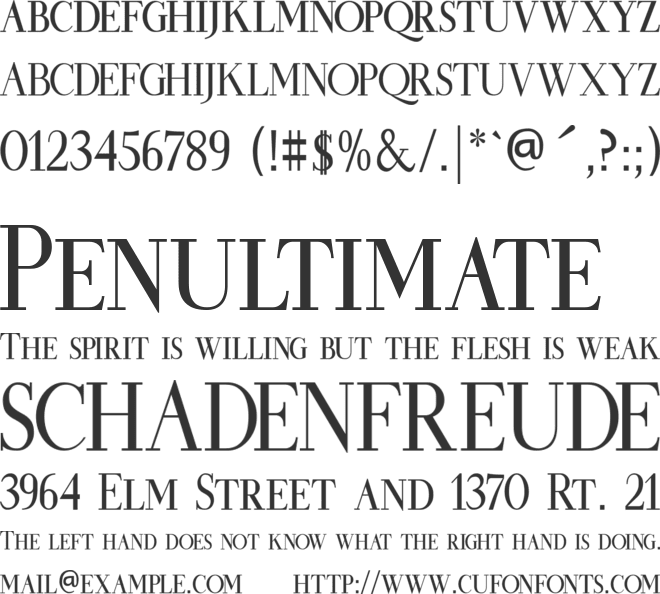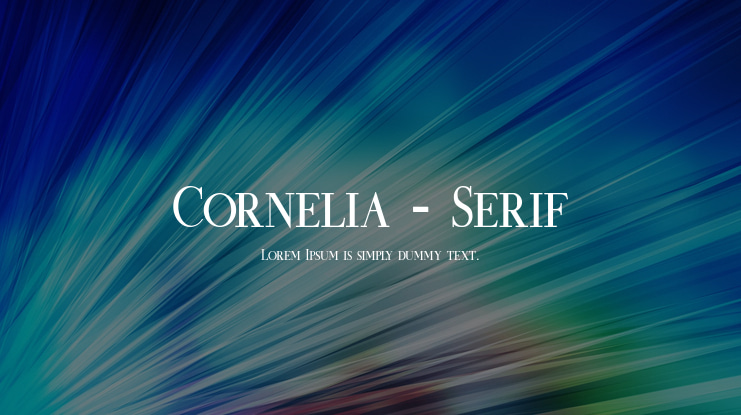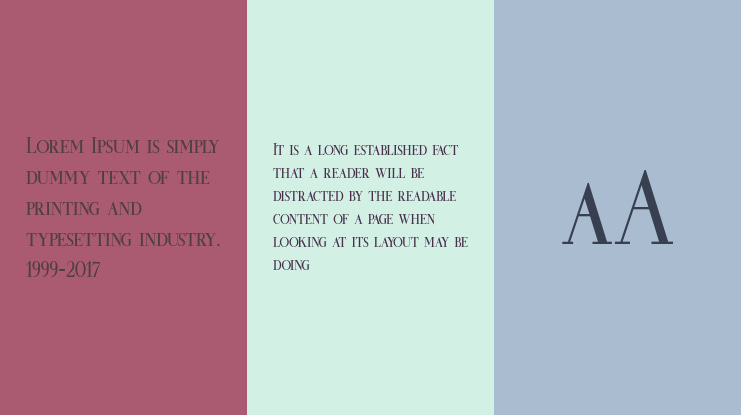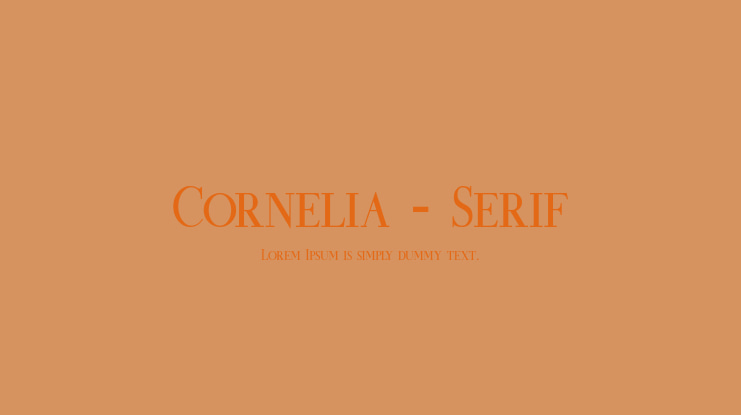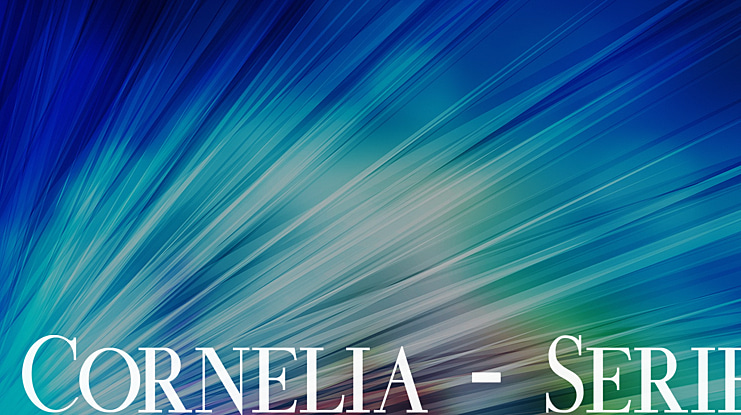
Cornelia - Serif Font
Cornelia Font Duo is a stunning pair of luxury script and serif fonts. These typefaces are designed to contrast and compliment each other with elegant beauty and contemporary style. Use Cornelia to create gorgeous wedding invitations, beautiful stationary art, eye-catching social media posts, and cute greeting cards.